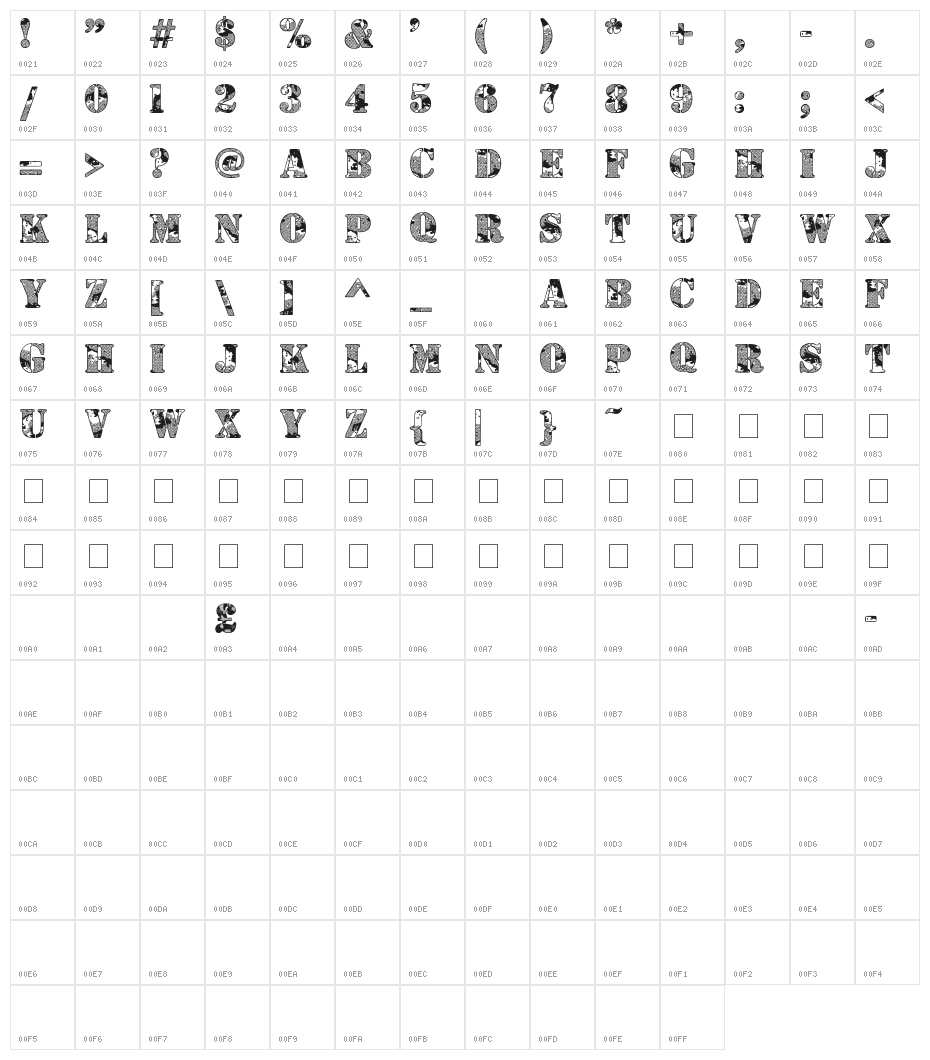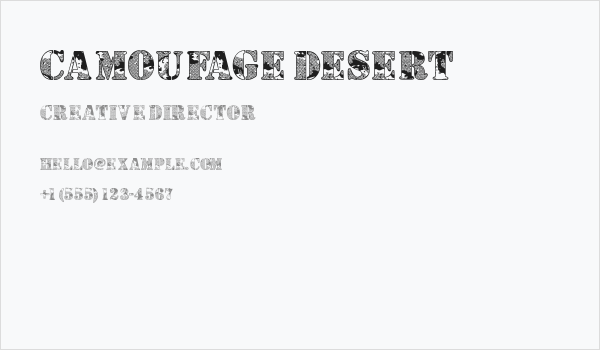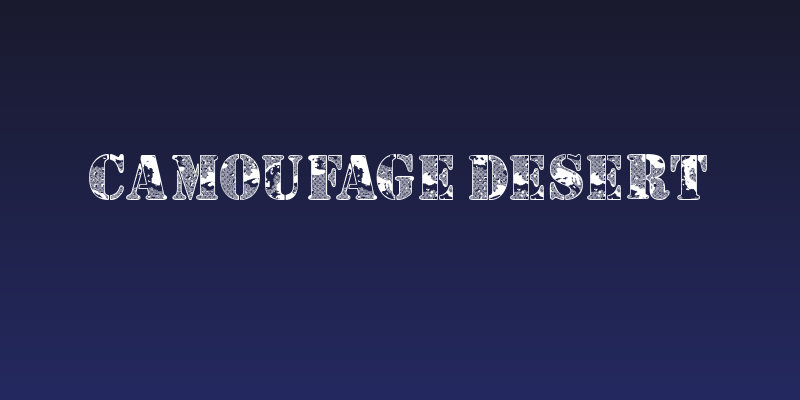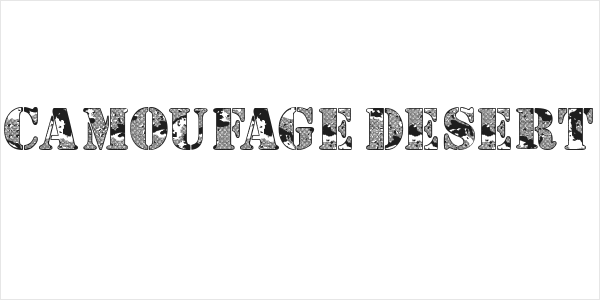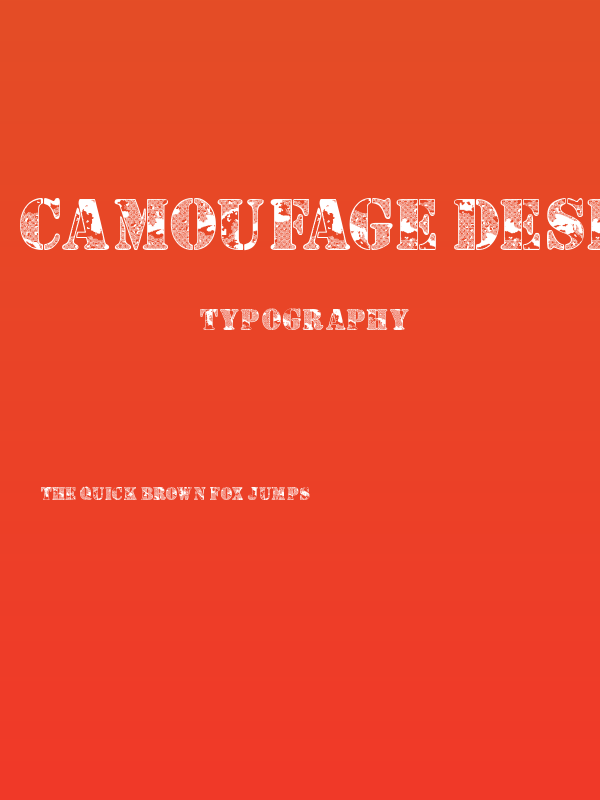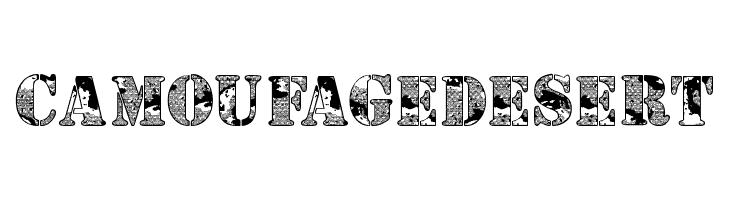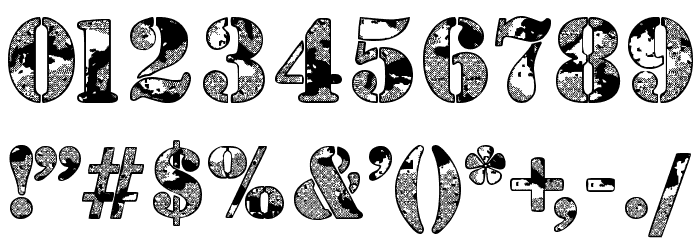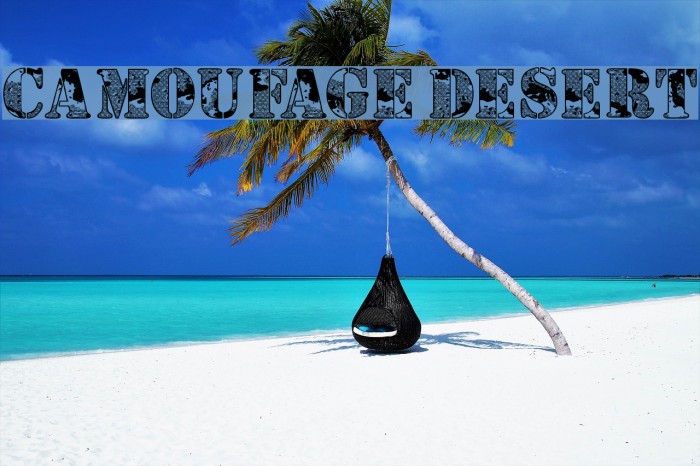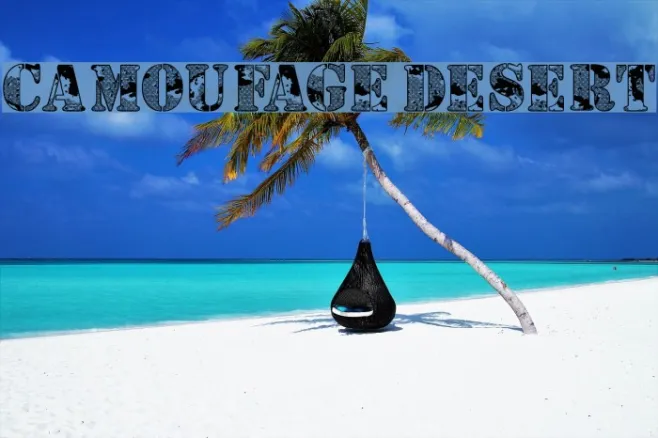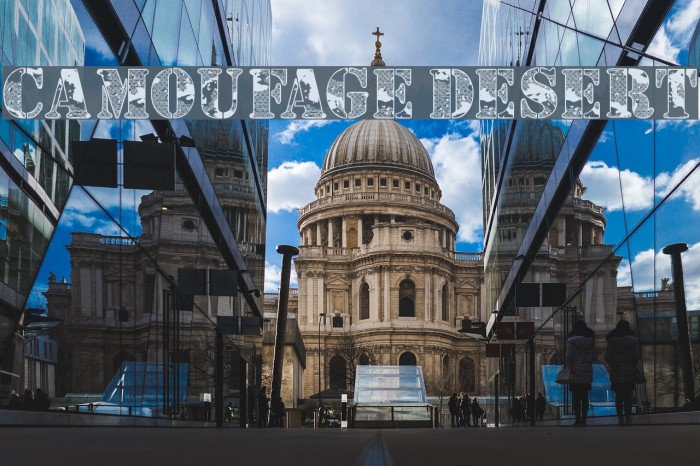
Camoufage Desert Font
Camoufage Desert Description
This font features a bold, decorative style with a camouflage pattern embedded within each character. The uppercase and lowercase letters, as well as numbers and special characters, are designed with a rugged texture that mimics the look of desert camouflage. The font's unique design makes it stand out, with each character having a distinct pattern that adds depth and visual interest. The boldness of the characters ensures readability while maintaining a strong visual impact. This font is ideal for projects that require a military or adventurous theme, offering a distinctive and eye-catching appearance.
| Proposed Projects | Perfect for military-themed posters, adventure branding, outdoor event flyers, and themed merchandise. |